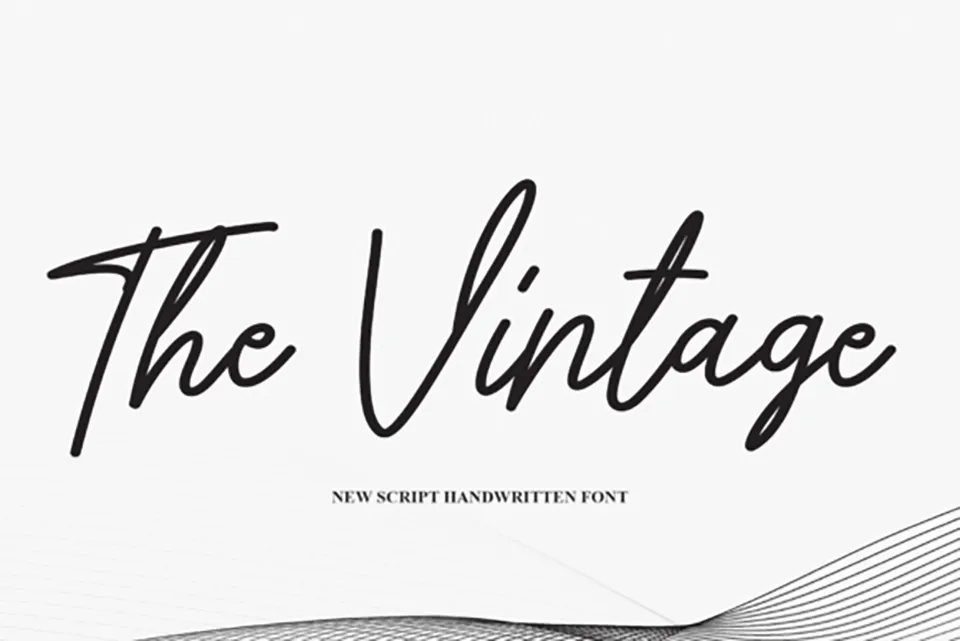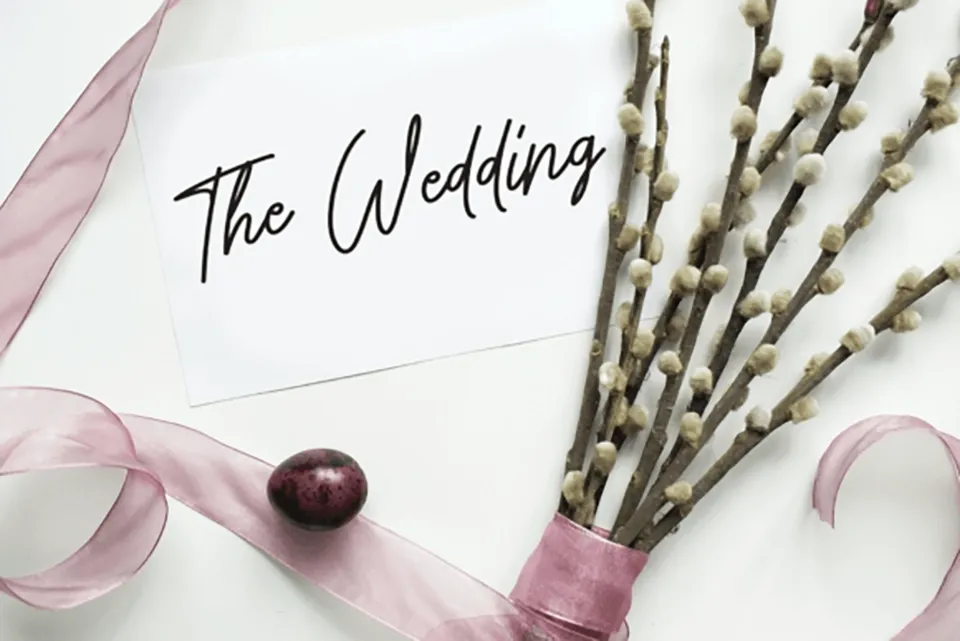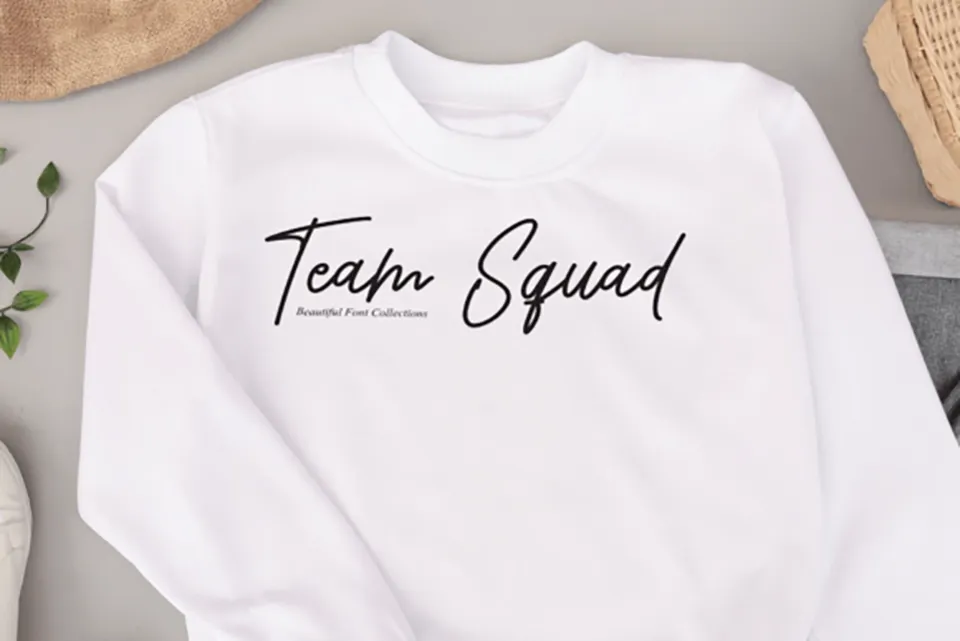
The Vintage Font
The Vintage Font is a sophisticated handwritten script typeface that blends elegance with a modern flair. Its smooth, flowing strokes and stylish letterforms create a timeless aesthetic, making it ideal for a variety of creative projects. Perfect for branding, invitations, logos, or social media graphics, The Vintage Font adds a personal and refined touch to your designs. Its versatile and graceful style ensures readability while delivering a sense of charm and artistry. Whether you’re crafting formal or casual designs, The Vintage Font offers a unique blend of classic beauty and contemporary appeal to elevate your creative vision.